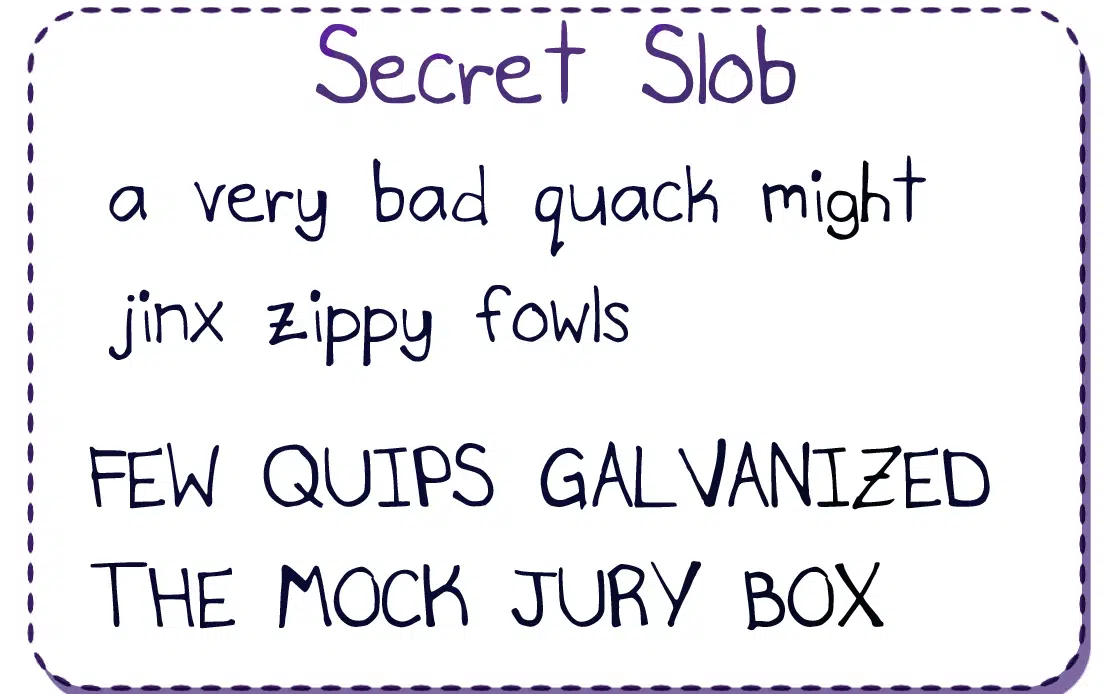
Secret Slob Font
Secret Slob Font is perfect for a wide range of design projects including quirky branding, alternative logos, indie band posters, underground zine layouts, rebellious streetwear designs, edgy packaging, counterculture graphics, and unconventional social media content. Its irreverent character makes it an excellent choice for projects that embrace imperfection, authenticity, and anti-establishment aesthetics.
What makes Secret Slob Font exciting is its unapologetic celebration of raw, unpolished design that rejects conventional typographic rules. The font features intentionally messy letterforms with irregular spacing and unpredictable variations that create a genuine DIY aesthetic. Its rebellious personality adds instant credibility and authenticity to projects targeting audiences who value individuality, creative freedom, and designs that dare to be different from mainstream perfection.
Secret Slob Font comes in multiple font families including Regular, Bold, Extra Messy, Condensed, Rough, and various grunge variations. These diverse options provide designers with creative flexibility to adjust the level of chaos and visual intensity while maintaining the font's characteristic anti-polish aesthetic throughout their work.